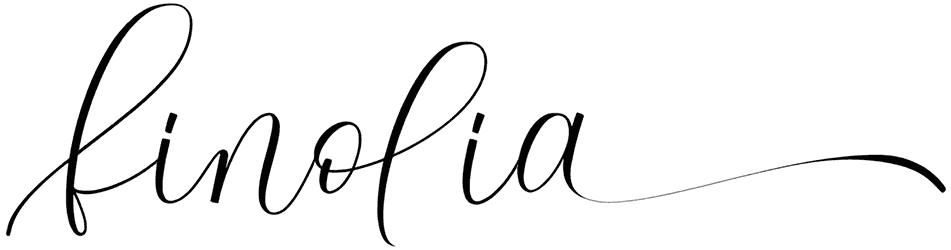
Finolia Font
If you want to convey a sense of luxury, this calligraphy font is able to make this vibe for your words. Finolia consists of appealing, delicate, and chic hand lettering that can be an attractive choice for any modern or…
If you want to convey a sense of luxury, this calligraphy font is able to make this vibe for your words. Finolia consists of appealing, delicate, and chic hand lettering that can be an attractive choice for any modern or classic design. With a full cover of characters, this love font would be perfect for many designs, from branding to social media posts.